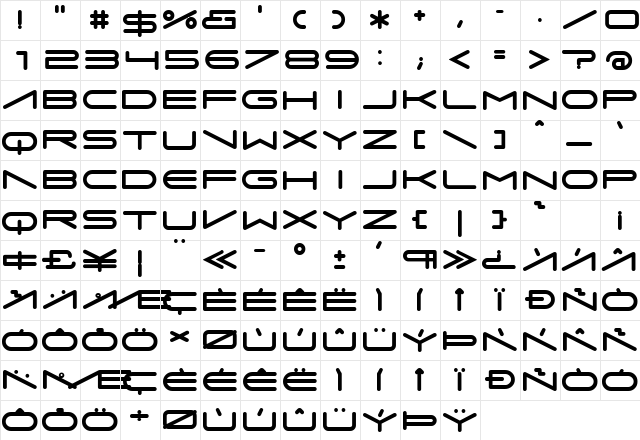
Imitari Extended
Design Context for Imitari Typeface
Imitari offers clean, dependable letterforms without strong stylistic allegiance, making it a practical choice for designers who need flexibility.